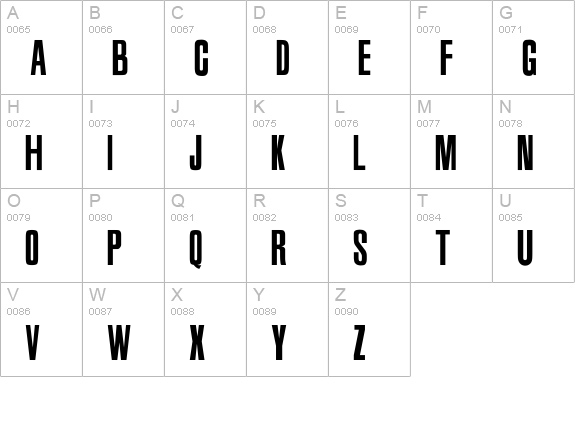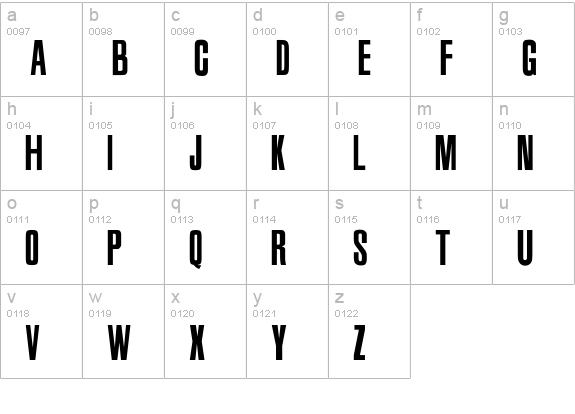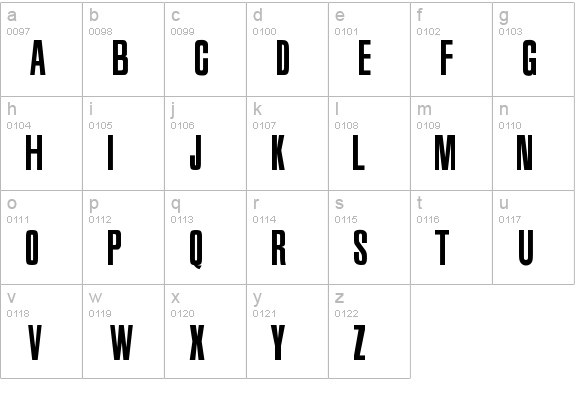
Metal Gear Solid 2 Font Details
The Metal Gear Solid 2 font is a sleek and futuristic typeface inspired by the iconic video game series. Its sharp edges and bold design evoke a sense of strength and power, making it perfect for projects that require a modern and dynamic look. This font is available for free download at FontsMarket.com, allowing you to easily incorporate its unique style into your designs without any cost. Whether you're working on a gaming project, a tech-related website, or any other creative endeavor that demands a cutting-edge aesthetic, the Metal Gear Solid 2 font is sure to make a statement. Download it today and unleash its bold energy in your next project!